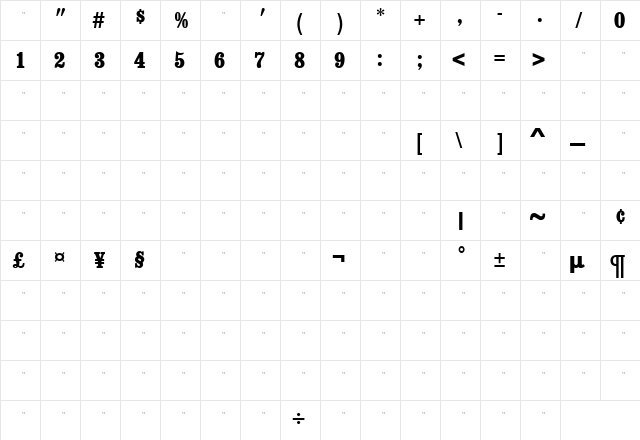
ConsortExtraBoldCondensedTab Regular Font Preview
Design Context for ConsortExtraBoldCondensedTab Typeface
ConsortExtraBoldCondensedTab takes a measured approach to typography — its balanced proportions and neutral character make it a reliable workhorse for both digital and print work. Its bold stroke weight gives it real presence on the page. The condensed width makes it efficient for tight spaces without sacrificing legibility.